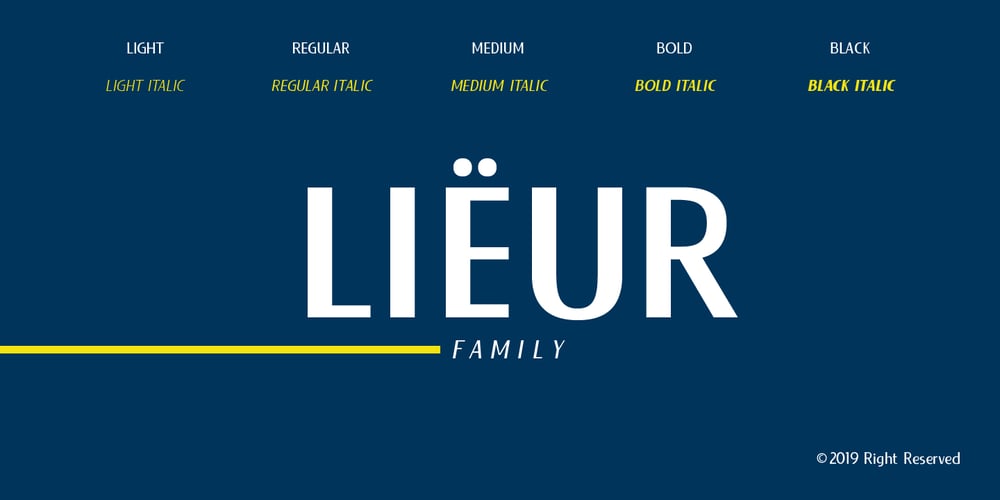
Lieur Font Family was designed by Andi Winarno and published by inkstypia. Lieur contains 10 styles and family package options. Lieur is a minimalist, geometric, sans serif font suitable for logos, label designs, or even just plain body text. It comes with 2 styles, Normal and Italic, and includes Light, Regular, Medium, Bold, and Black weights to give you great possibility to harmonize the look and feel of your text.